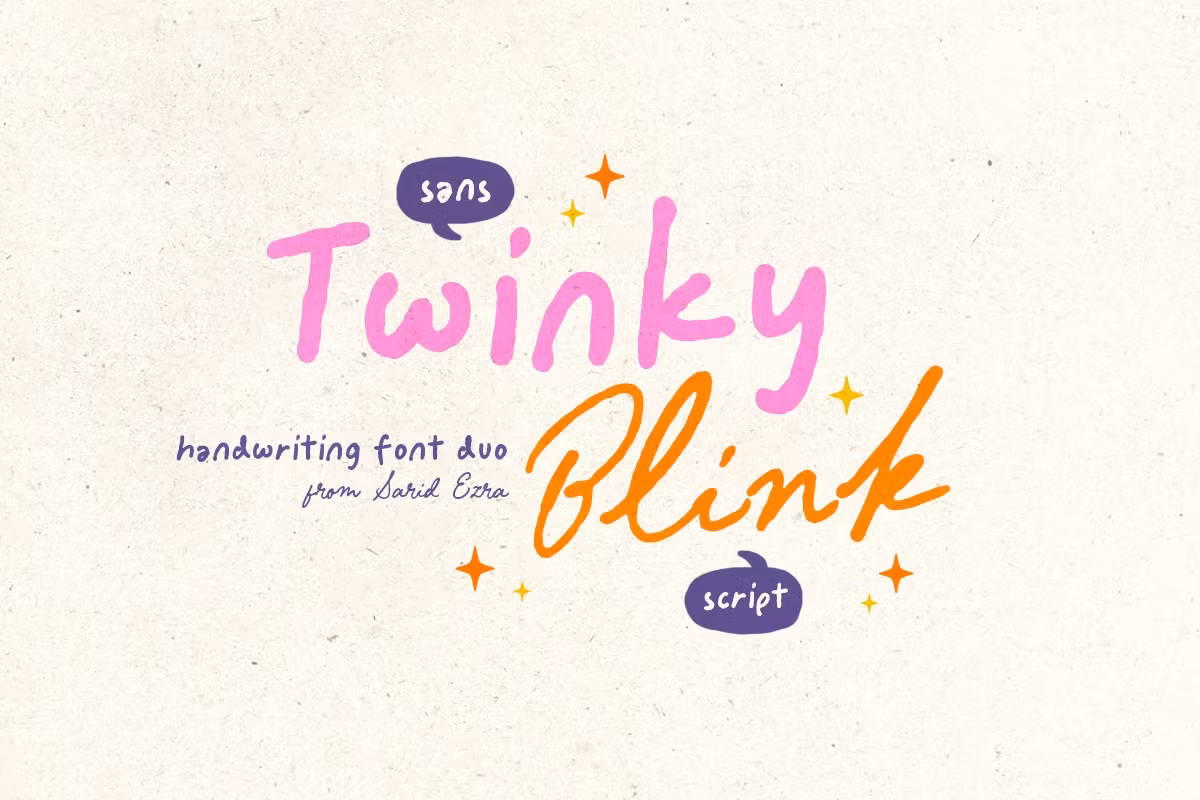
Twinky Blink - Cute Font Duo Free Download
Brighten up your designs with Twinky Blink – Cute Font Duo Free Download, a playful and charming typeface pair perfect for fun and creative projects. You need to purchase this font for commercial use. However, you can try it out in personal or non-commercial work using Twinky Blink – Cute Font Duo Free Download. This delightful duo includes a bubbly script and a clean sans-serif, making it ideal for kids’ designs, branding, invitations, greeting cards, and social media graphics. Designers love its cheerful vibe and versatile pairing. Download Twinky Blink – Cute Font Duo Free Download today and add a dose of cuteness to your next project!